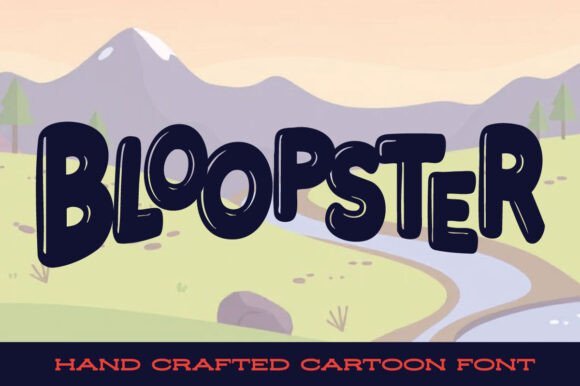
Introduction to Bloopster Font
Bloopster is a bold, bouncy cartoon font that’s as playful as it is eye-catching.
With its rounded corners and chubby letterforms, it brings a friendly, approachable vibe to any design Perfect for kids’ projects, comic book titles, toy packaging, or anything that needs a splash of fun, Bloopster adds a sense of whimsy and joy wherever it goes.
Why Choose Bloopster Font?